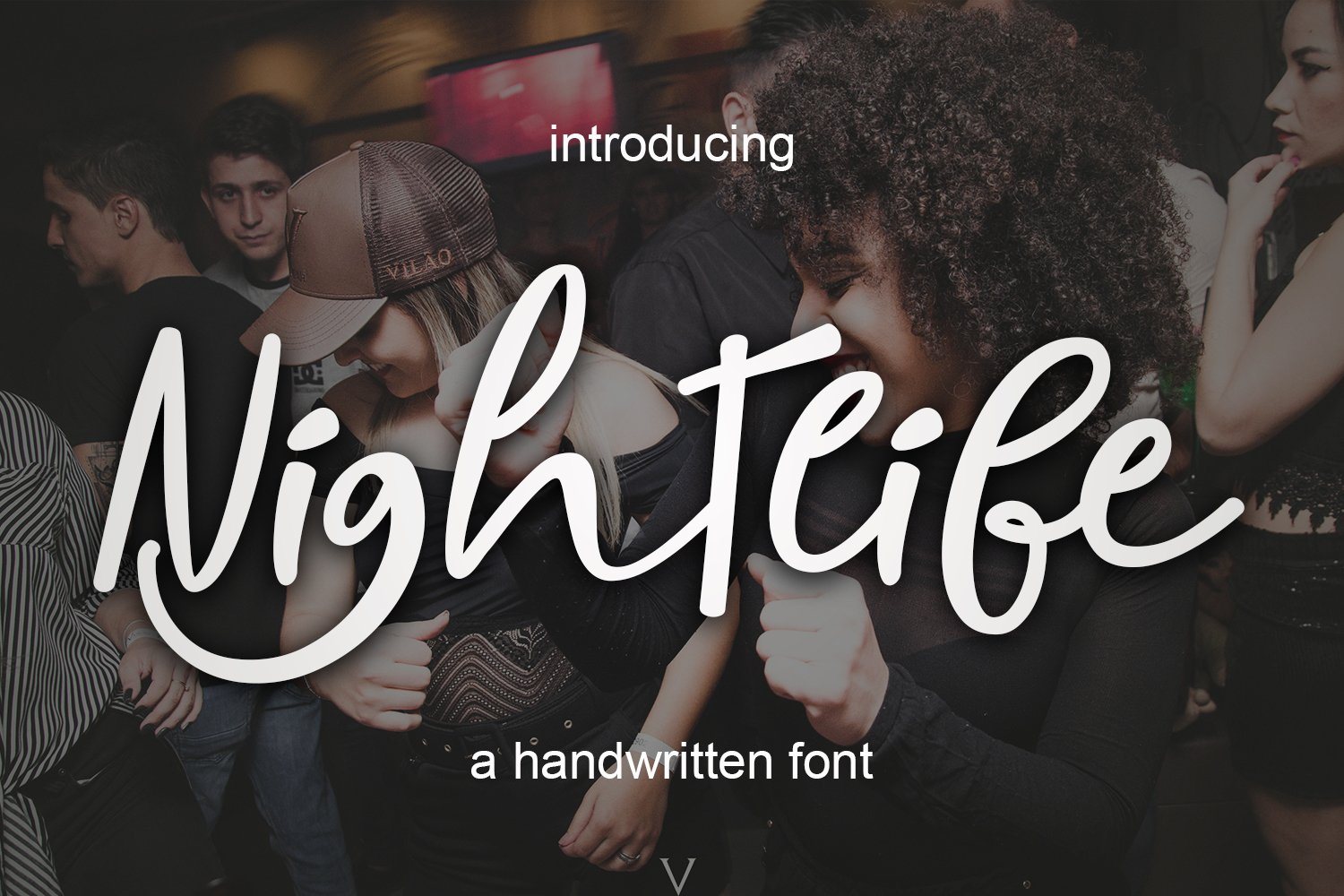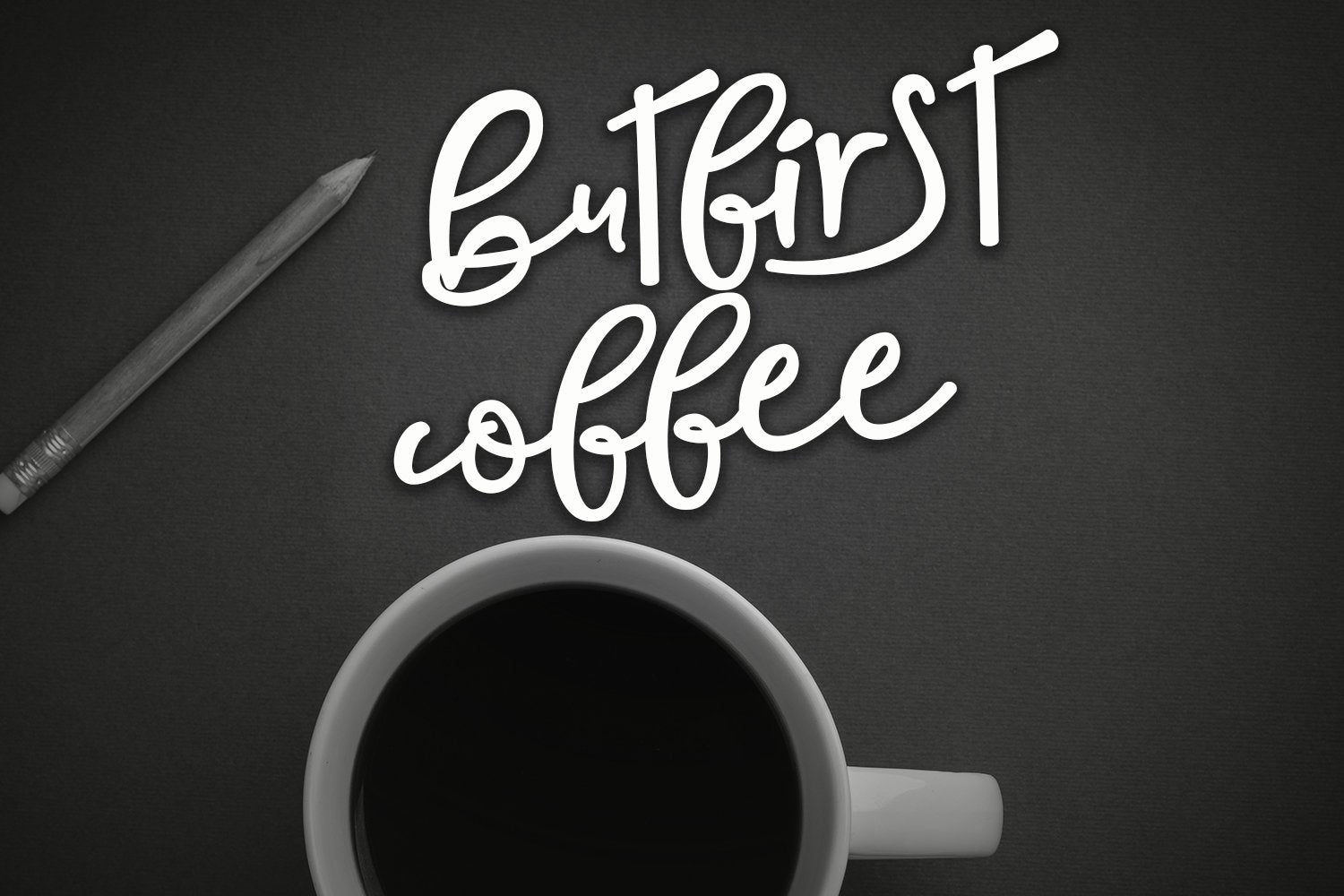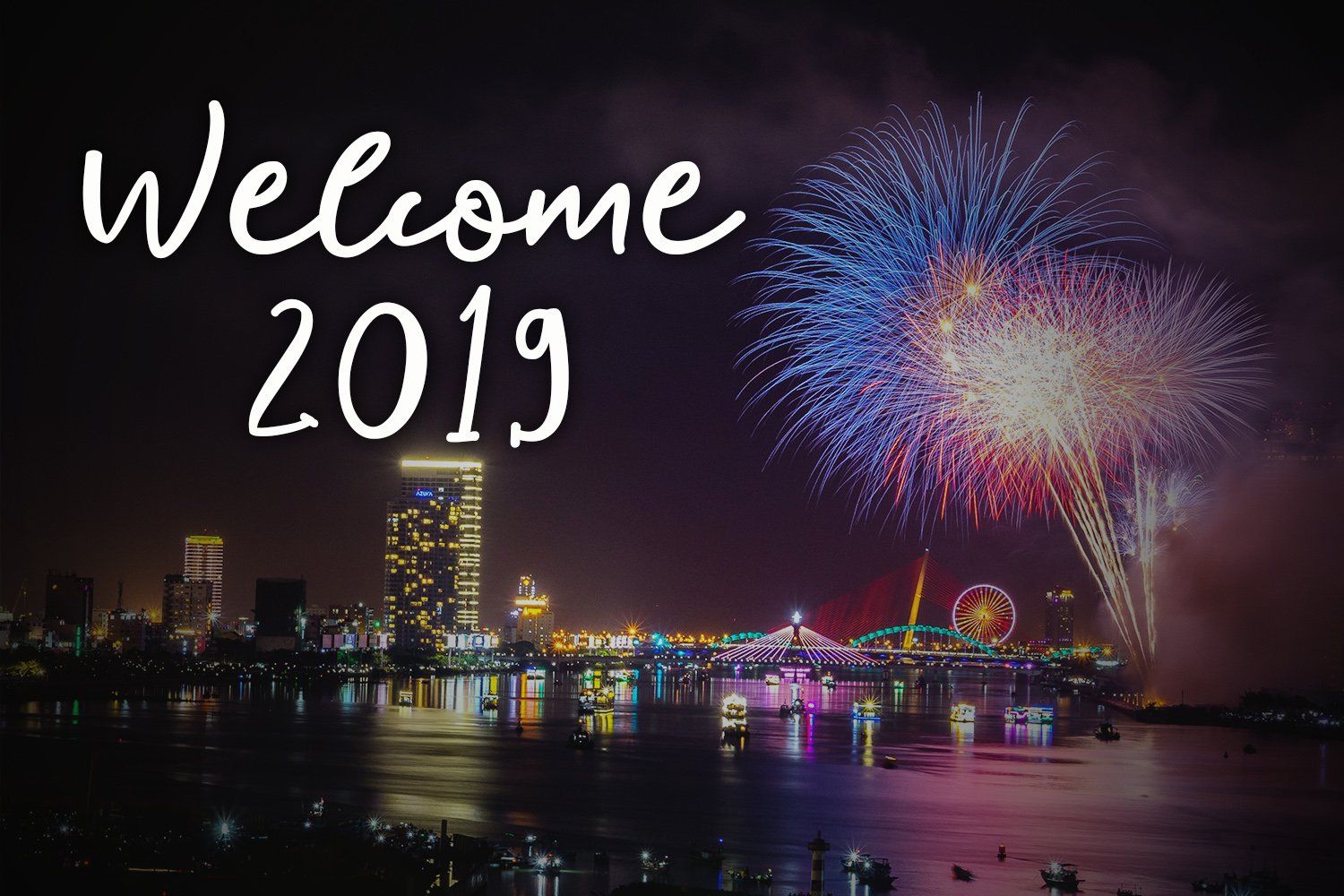
NightLife
Introducing Nightlife Script a new fresh & modern script with a handmade calligraphy style, decorative characters So beautiful on the invitation like greeting cards, branding materials, business cards, quotes, posters, and more!! The ZIP file includes the following : Nightlife Script Script TTF Nightlife Script Script OTF to use a variety of flying machines, you need a program that supports OpenType features such as Adobe Photoshop Cs / Adobe Photoshop CC, Adobe Illustrator CS / Adobe Illustrator CC, Adobe Indesign, and Corel Draw and many more programs that support OpenType.If you do not have a program that supports OpenType, you can access all the alternate glyphs using Font Book (Mac) or Character Map (Windows) Thanks and happy designing 🙂 Thank You for purchase! Introducing Nightlife Script a new fresh & modern script with a handmade calligraphy style, decorative characters So beautiful on the invitation like greeting cards, branding materials, business cards, quotes, posters, and more!! The ZIP file includes the following : Nightlife Script Script TTF Nightlife Script Script OTF to use a variety of flying machines, you need a program that supports OpenType features such as Adobe Photoshop Cs / Adobe Photoshop CC, Adobe Illustrator CS / Adobe Illustrator CC, Adobe Indesign, and Corel Draw and many more programs that support OpenType.If you do not have a program that supports OpenType, you can access all the alternate glyphs using Font Book (Mac) or Character Map (Windows) Thanks and happy designing 🙂 Thank You for purchase! Introducing Nightlife Script a new fresh & modern script with a handmade calligraphy style, decorative characters So beautiful on the invitation like greeting cards, branding materials, business cards, quotes, posters, and more!! The ZIP file includes the following : Nightlife Script Script TTF Nightlife Script Script OTF to use a variety of flying machines, you need a program that supports OpenType features such as Adobe Photoshop Cs / Adobe Photoshop CC, Adobe Illustrator CS / Adobe Illustrator CC, Adobe Indesign, and Corel Draw and many more programs that support OpenType.If you do not have a program that supports OpenType, you can access all the alternate glyphs using Font Book (Mac) or Character Map (Windows) Thanks and happy designing 🙂 Thank You for purchase!